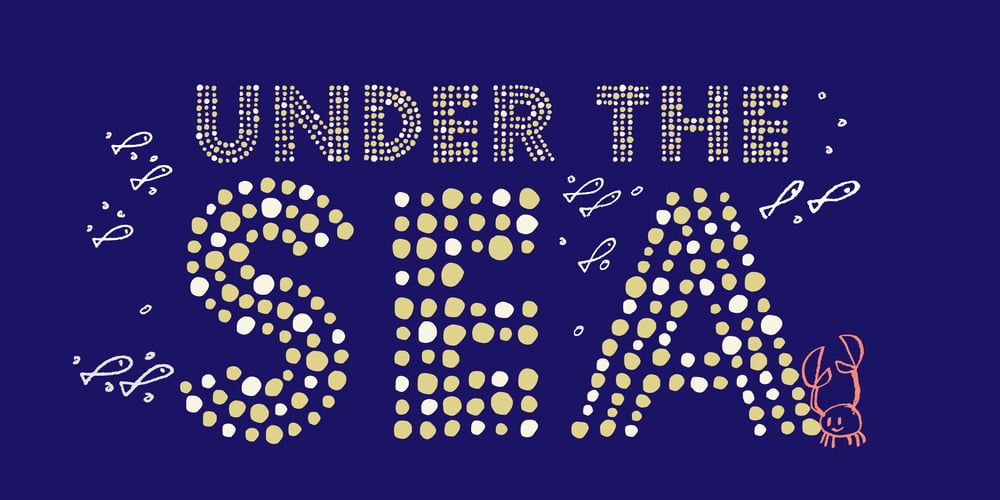
Playa
Playa font
Playa Font Family was designed by Alejandro Paul, Javier Royo and published by Sudtipos. Playa contains 2 styles and family package options. A collaboration between Javirroyo (illustrator) and Ale Paul (type designer) for Sudtipos as part of the first project at the foundry between illustration and type design to create a collection of colorfonts. About the font: Playa is a typeface that is born under the sun. It is drawn when the water hits the sand and breaks into a thousand drops that shine and modify its color and appearance. Use it only in a good mood. Package: Playa comes in file with a pre-defined color palette . You can always change the colors converting the text to outlines. Technical info to use: The package contains a normal OTF font in Black and White and a colorfont in SVG-TTF format. To be able to use the color file you need to have installed Adobe Photoshop CC2017 or Adobe Illustrator CC2018. Not all the browsers support color fonts so please be sure to use them as graphics.